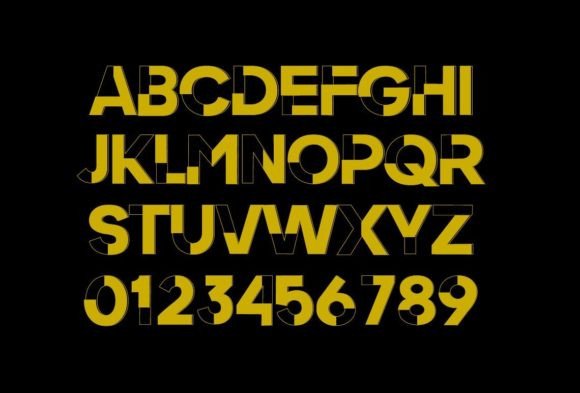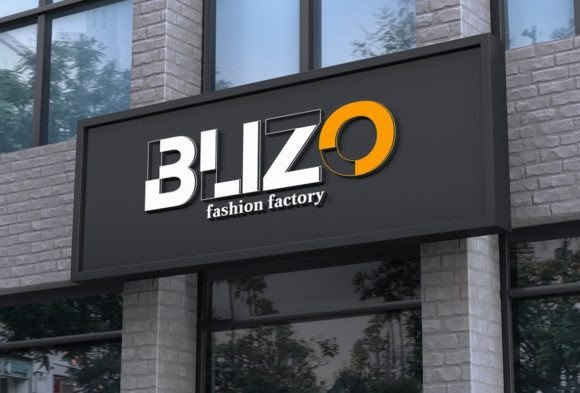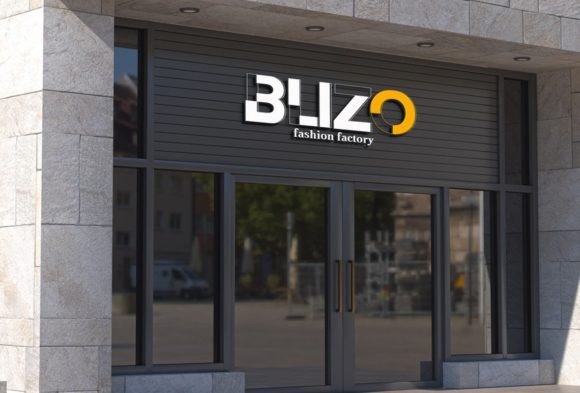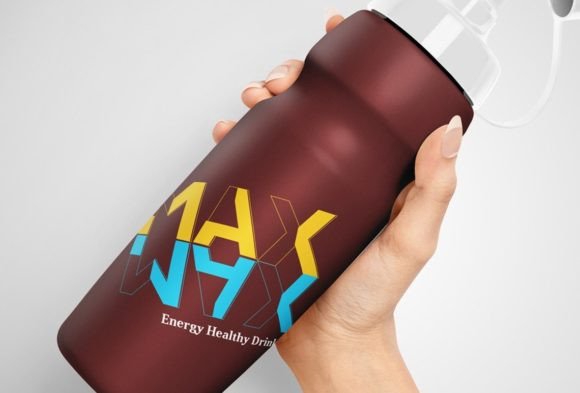
Chernobyl Font: Elevate Your Designs with a Modern, Simple, and Casual Display Font
In the world of typography, a font can make or break a design. With the vast array of fonts available, it can be overwhelming to choose the perfect one that embodies the tone and style of your project. However, if you’re looking for a modern, simple, and casual display font that exudes a clean feel, look no further than the Chernobyl Font. This stunning typeface is designed to make a statement, with its neat and beautiful arrangement of letters that will leave a lasting impression on your audience.
What is Chernobyl Font?
Chernobyl Font is a modern display font that boasts a bold yet incredibly versatile and adaptable style. Its clean and simple design makes it perfect for a wide range of applications, from formal to non-formal designs. Whether you’re working on a branding project, a website, or a craft project, this font is sure to elevate your design to the next level.
Key Features of Chernobyl Font
- Modern and Simple Design: Chernobyl Font features a sleek and contemporary design that is both visually appealing and easy to read.
- Clean Feel: The font’s clean lines and neat arrangement of letters give it a fresh and crisp feel that is perfect for designs that require a touch of sophistication.
- Bold yet Versatile: Despite its bold style, Chernobyl Font is incredibly versatile and adaptable, making it suitable for a wide range of applications.
- Beautiful Arrangement of Letters: The font’s letters are carefully arranged to create a beautiful and harmonious visual flow, making it a joy to use.
Uses of Chernobyl Font
Chernobyl Font is a highly versatile font that can be used in a variety of applications, including:
- Branding: Use Chernobyl Font to create stunning logos, business cards, and letterheads that will leave a lasting impression on your clients.
- Web Design: Add a touch of elegance to your website with Chernobyl Font, perfect for headings, titles, and other display text.
- Crafting: Whether you’re working on a DIY project, a scrapbook, or a handmade card, Chernobyl Font is the perfect choice to add a personal touch.
- Advertising: Use Chernobyl Font to create eye-catching advertisements that will grab the attention of your target audience.
Why Choose Chernobyl Font?
With so many fonts available, why choose Chernobyl Font? Here are just a few reasons:
- Unique and Memorable: Chernobyl Font is a unique and memorable font that will set your design apart from the rest.
- Easy to Read: Despite its bold style, Chernobyl Font is easy to read, making it perfect for designs that require a clear and concise message.
- Highly Versatile: Chernobyl Font can be used in a wide range of applications, from formal to non-formal designs.
Tips for Using Chernobyl Font
To get the most out of Chernobyl Font, here are a few tips:
- Use it as a Display Font: Chernobyl Font is perfect for display text, such as headings, titles, and captions.
- Experiment with Colors: Chernobyl Font looks stunning in a variety of colors, so don’t be afraid to experiment and find the perfect hue for your design.
- Pair it with Other Fonts: Chernobyl Font pairs well with other fonts, so feel free to get creative and find the perfect combination for your design.
In conclusion, Chernobyl Font is a modern, simple, and casual display font that is sure to elevate your designs to the next level. With its clean feel, beautiful arrangement of letters, and highly versatile style, this font is perfect for designers and crafters alike. Whether you’re working on a branding project, a website, or a craft project, Chernobyl Font is the perfect choice to add a touch of sophistication and elegance.